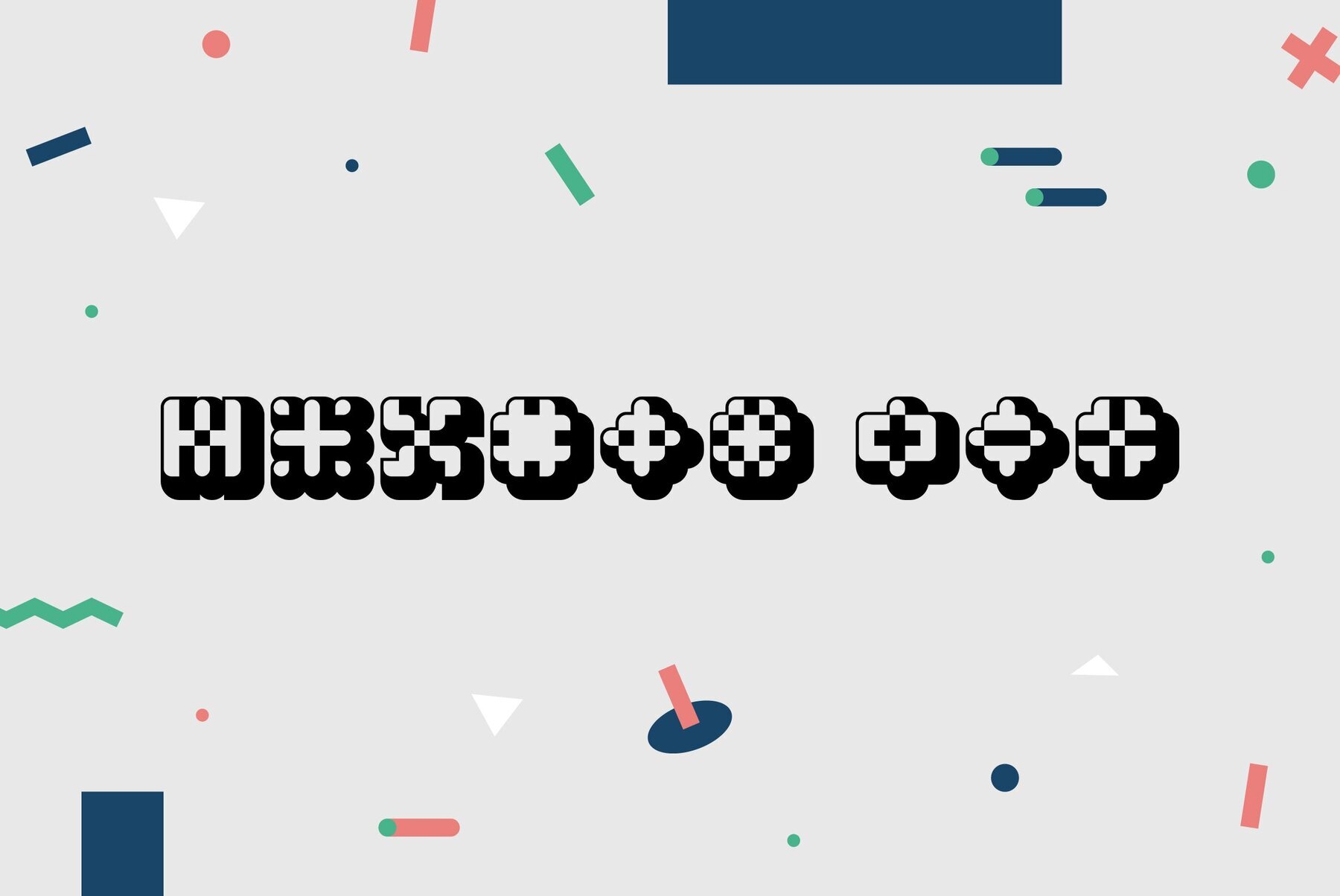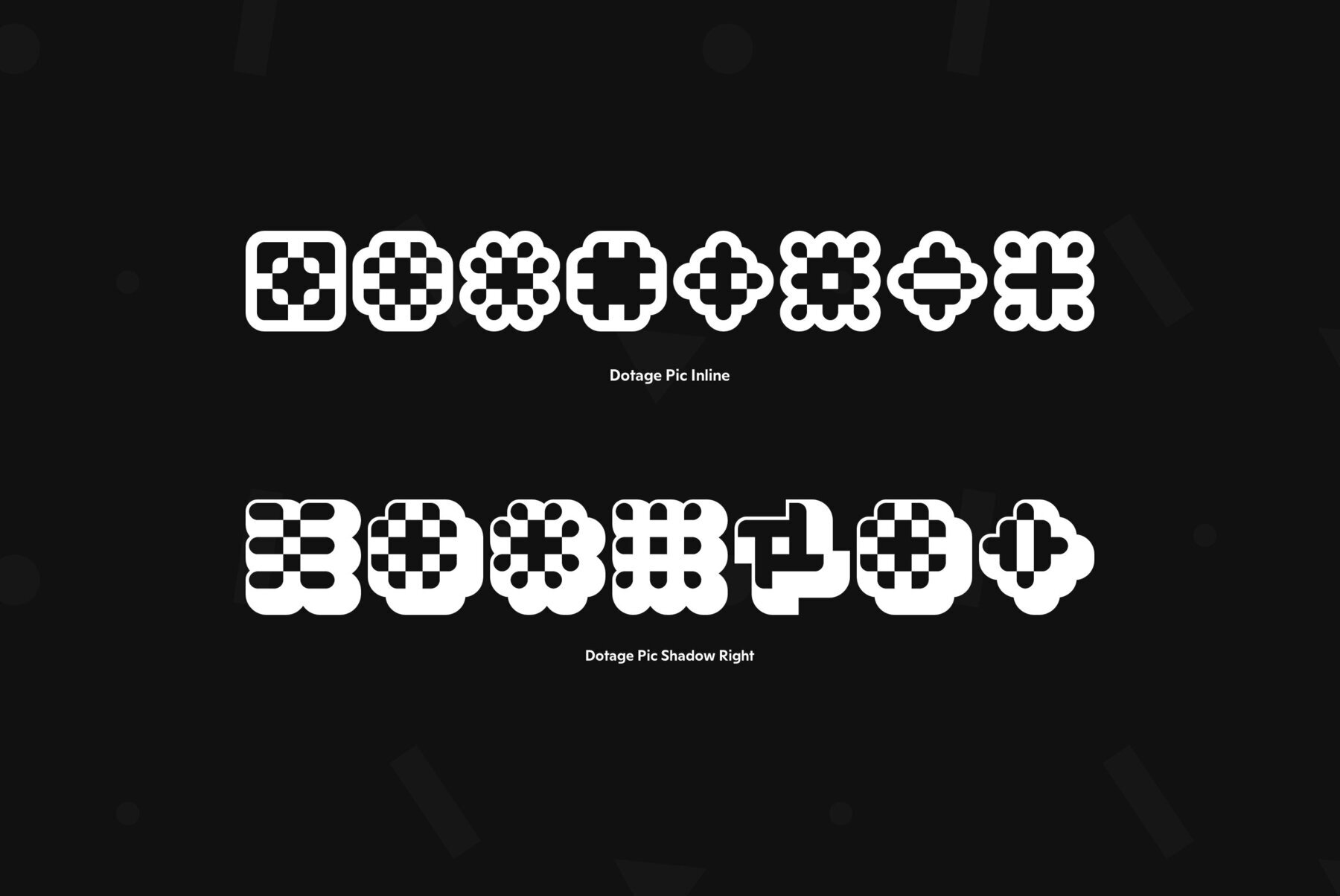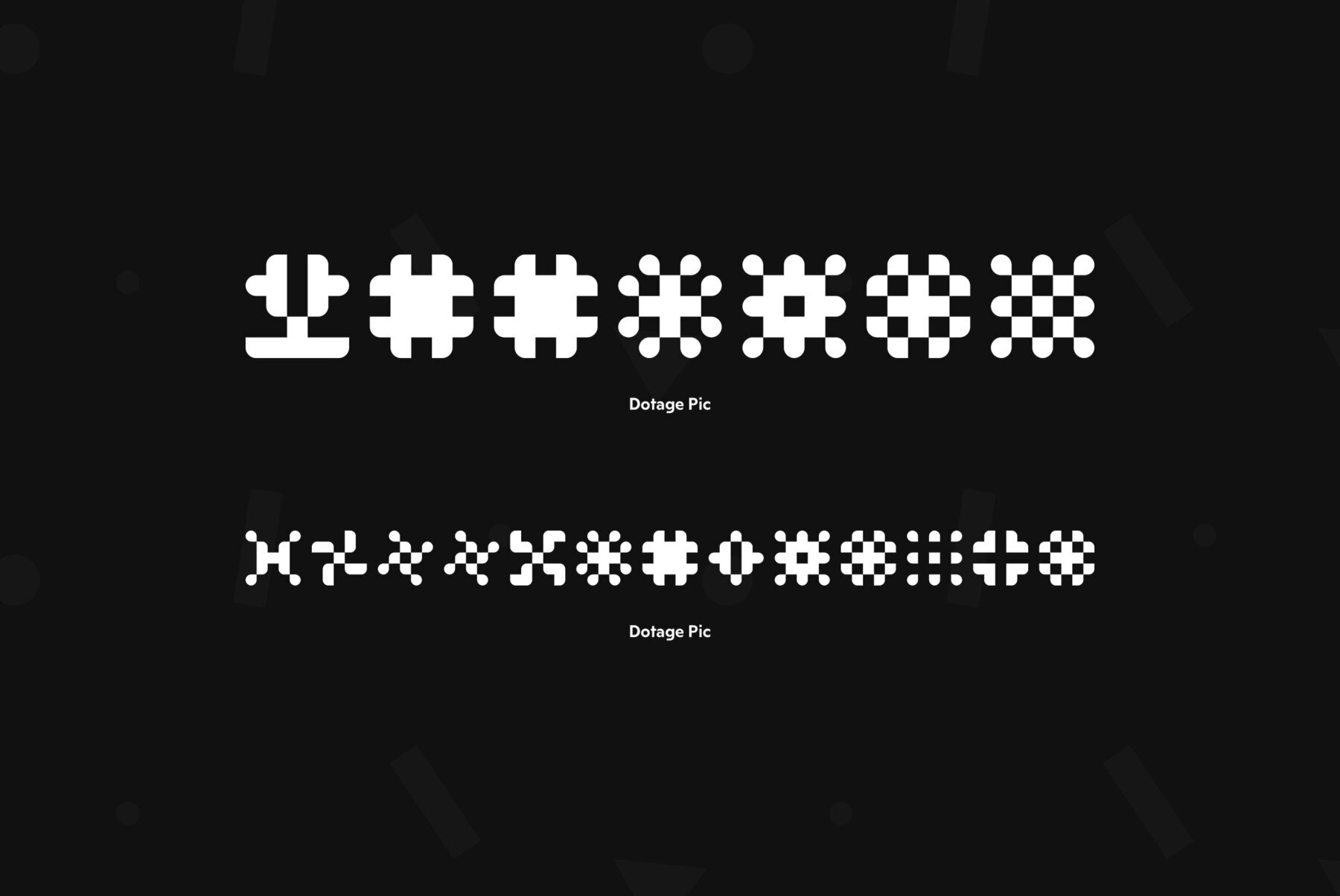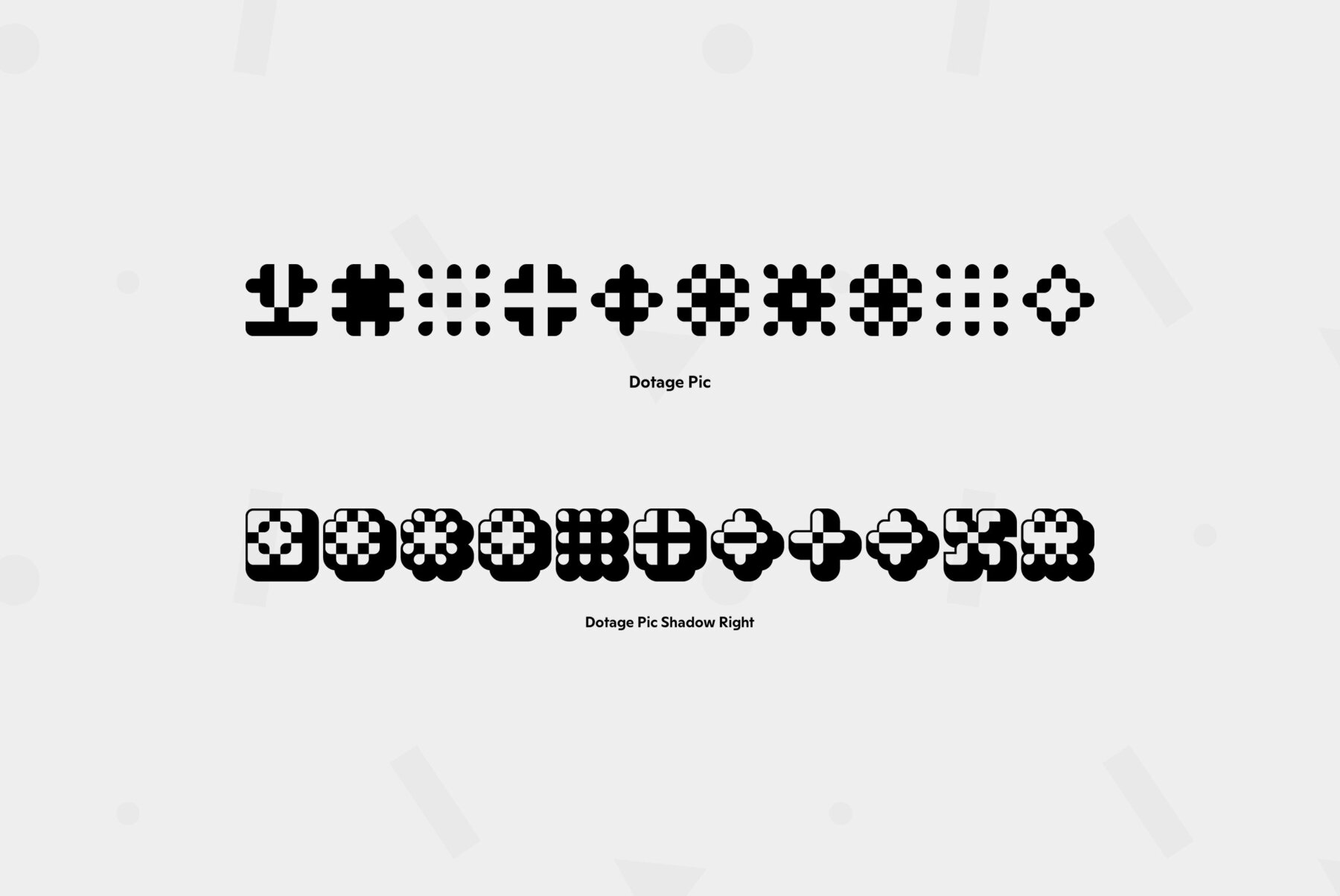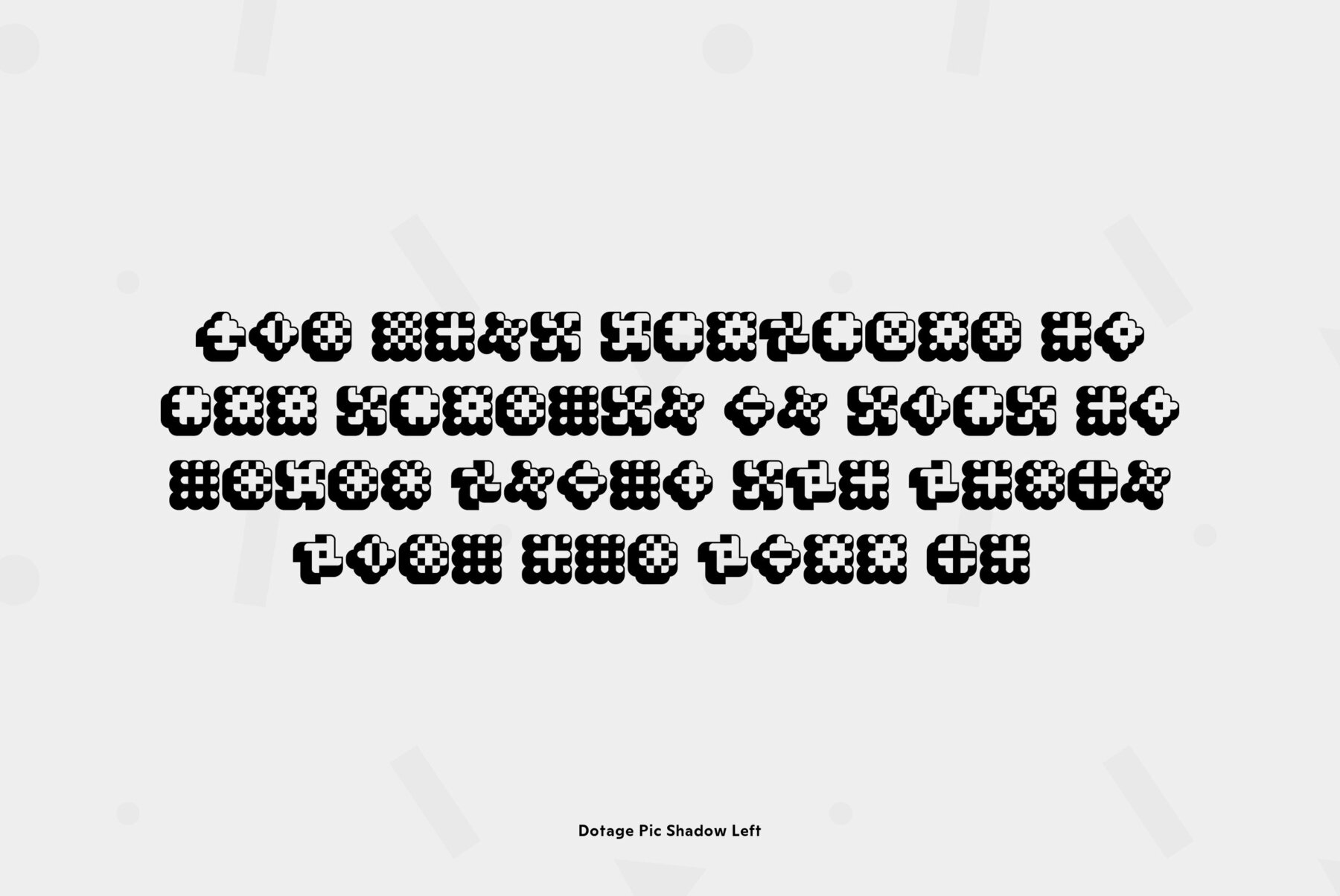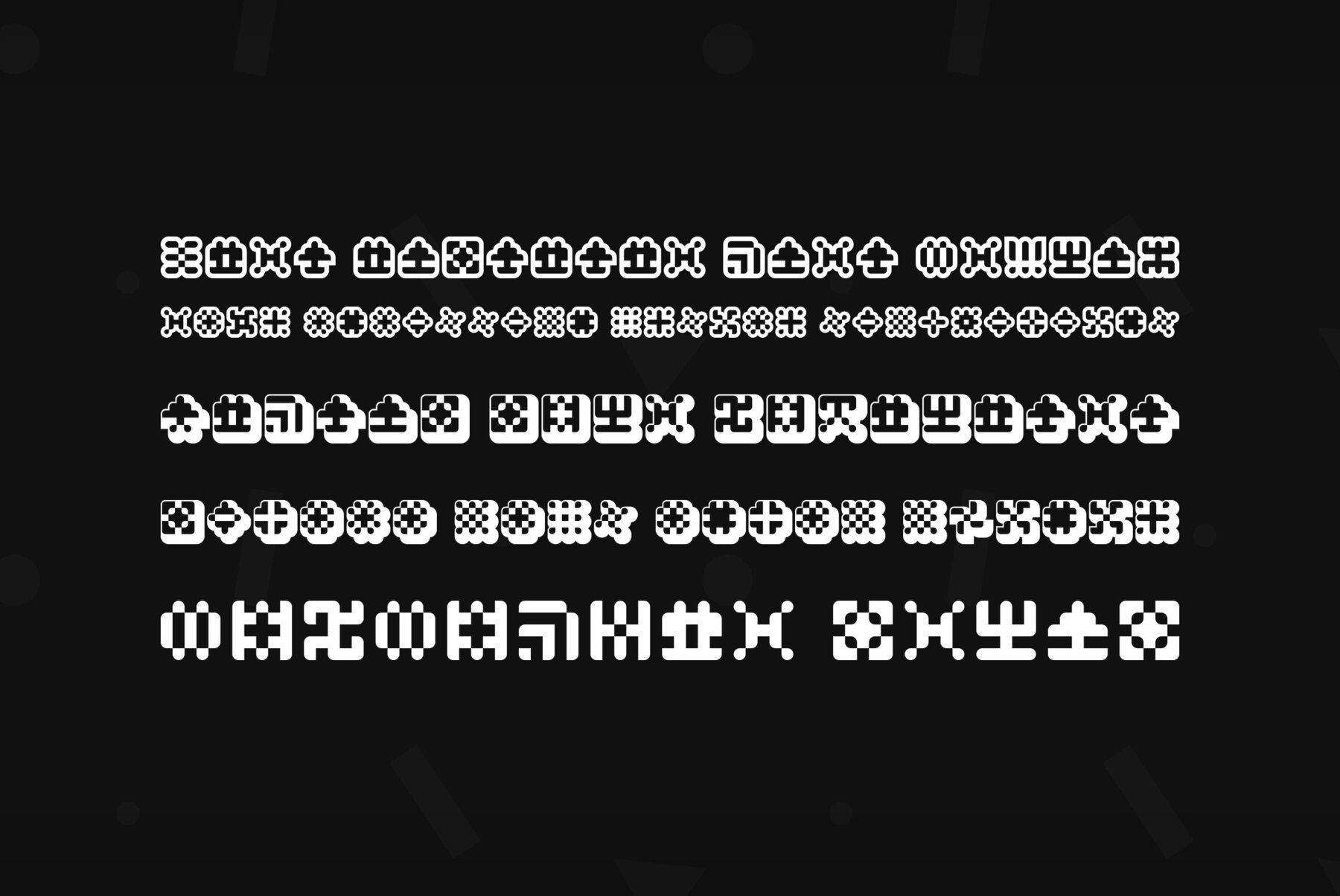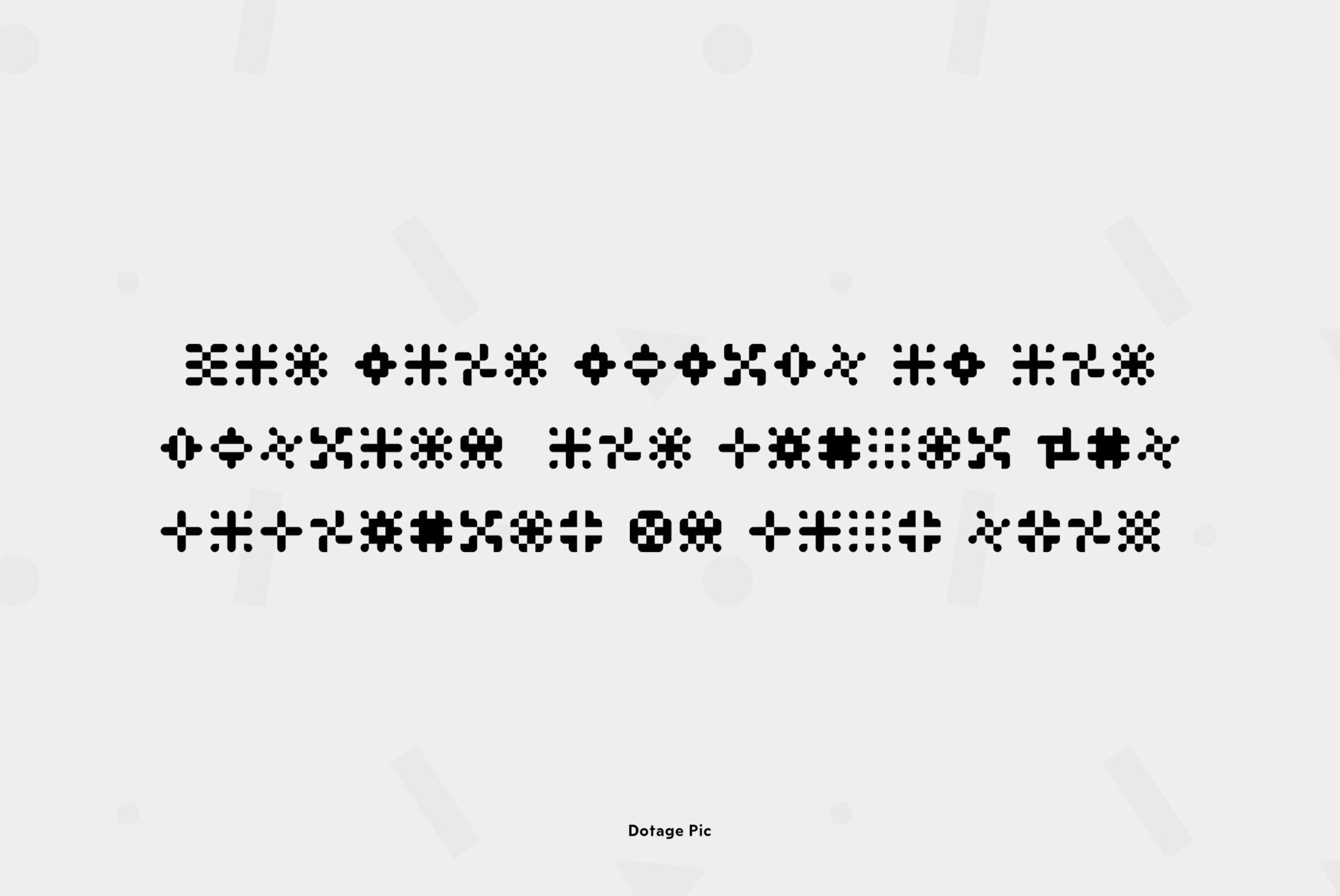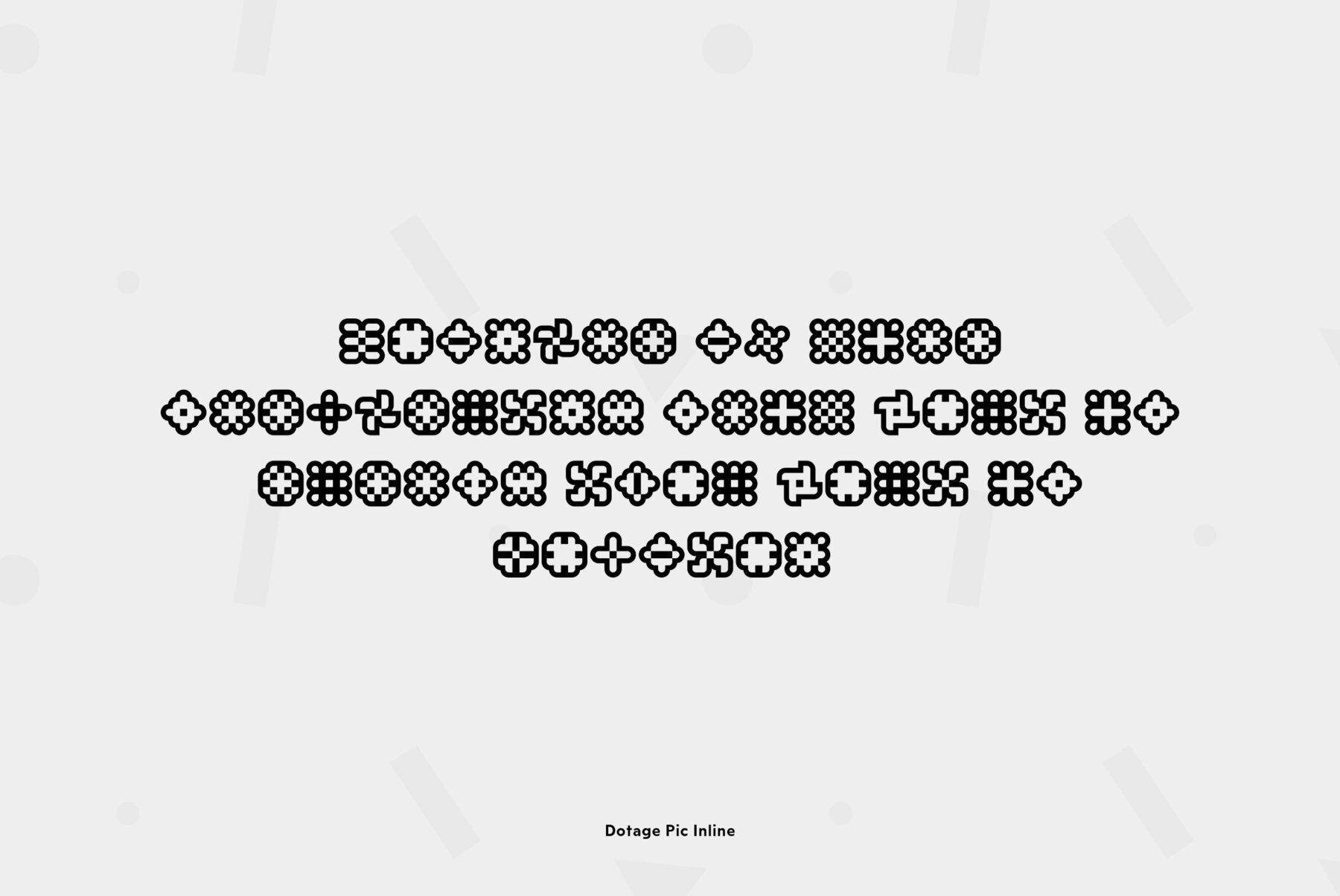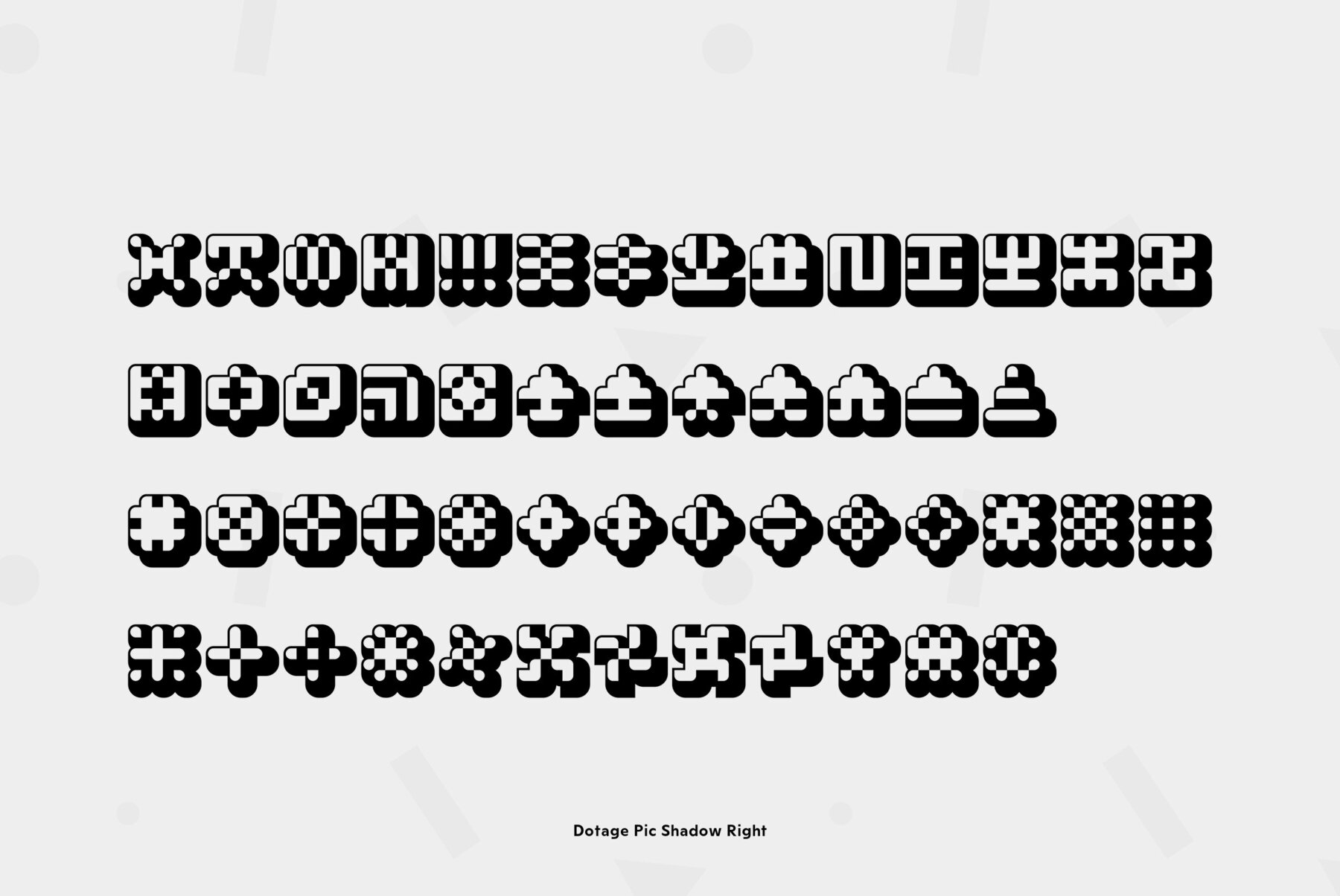
Dotage Pic
Decorative caps only type family was designed in 2004 by Vladimir Pavlikov and licensed by ParaType. Its letterforms are imitating low resolution display letters used at railway stations, airports, and other public places. Regular, Inline, Shadow Left, and Shadow Right styles are available. An additional set of symbols and pictograms is included in each style to increase its decorative abilities. The face is good in magazine advertising, posters, and industrial graphic design at the fields of science and technics.